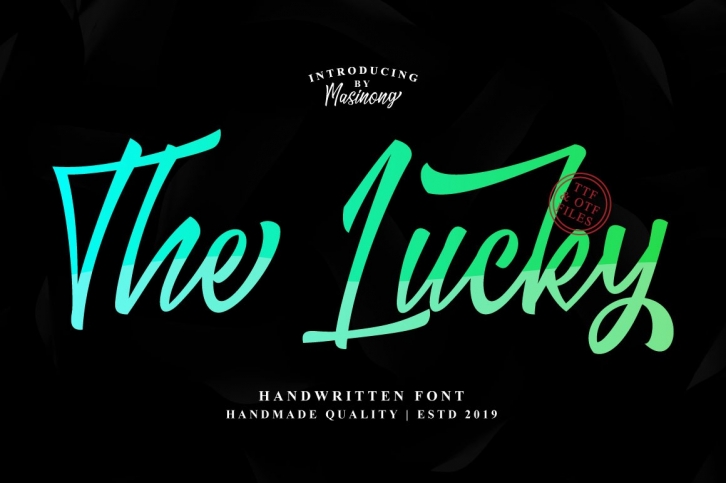
The Lucky is a gorgeous font that was realeased on October 14, 2019. The font can be used in many style contexts and design environments. Perfect for invitations, magazines, websites, logos, and more! It was designed by masinong and the file size is 7.68 MB. Thanks for checking out this font!